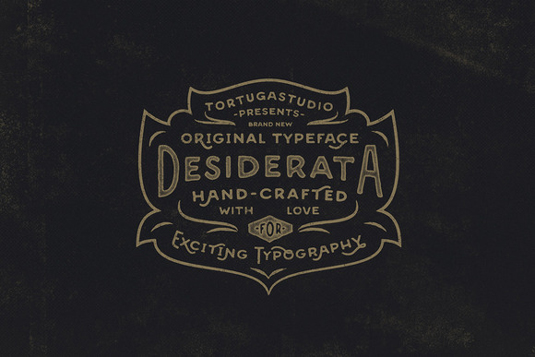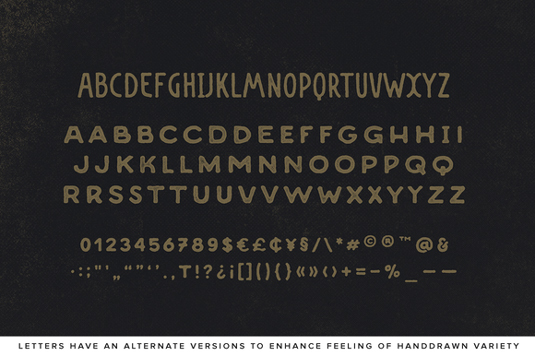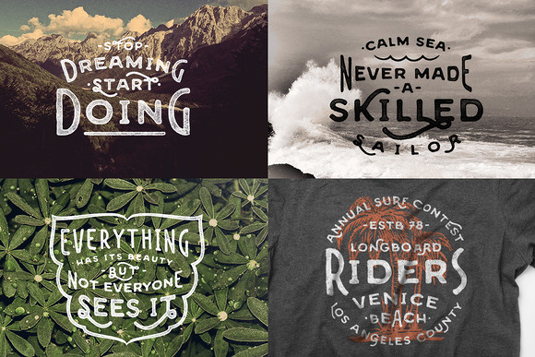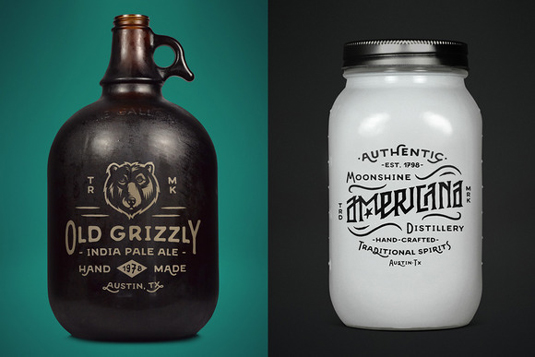
Font of the day: Desiderata
Desiderata from Tortuga Studio
Today's font of choice, Desiderata, is a must-have typeface for vintage lovers. Created by the team at Tortuga Studio and available from Creative Market, the design is described as: 'Inspired by the the good old days, hand-crafted art and artisans of the past, Desiderata is intended to convey that handmade aesthetics of neo-nostalgia and vintage feeling many of designers are trying to embrace nowadays. Each letter was hand-drawn with great attention, then accurately digitized with slightly imperfect edges to ensure that vintage authenticity and feel of age'.